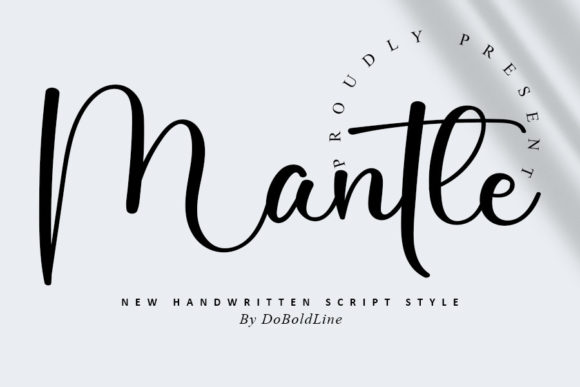
**Mantle Font: Timeless Beauty for Unforgettable Designs**
Immerse yourself in the world of elegance and sophistication with Mantle Font, a breathtaking script font that captures the essence of timeless calligraphy. This masterpiece, brought to life by the talented minds at DoBold.Line, exudes an aura of contemporary charm, making it the perfect choice for discerning designers seeking to add a touch of enchantment to their creations.
Mantle Font boasts a harmonious blend of balance and diversity, meticulously crafted to elevate the aesthetics of your projects. Its versatile nature allows it to gracefully adapt to a myriad of applications, from the delicate charm of wedding invitations to the captivating allure of branding materials.
Indulge in the unparalleled beauty of Mantle Font's carefully drawn characters, each stroke imbued with a graceful fluidity that mimics the artistry of handwritten calligraphy. Witness how this font seamlessly harmonizes with your designs, infusing them with a timeless elegance that will captivate the hearts of your audience.
Unleash the boundless potential of Mantle Font's comprehensive glyphs and ligatures, effortlessly accessible through its PUA encoding. This user-friendly feature empowers you to effortlessly incorporate intricate details and embellishments into your designs, unlocking a world of creative possibilities.
Whether you're an experienced designer or just starting your creative journey, Mantle Font is the perfect companion for your design endeavors. Its intuitive nature and unparalleled versatility make it an indispensable tool for anyone seeking to elevate their projects with a touch of timeless beauty.
Embrace the allure of Mantle Font today and embark on a creative adventure where elegance and inspiration intertwine seamlessly.